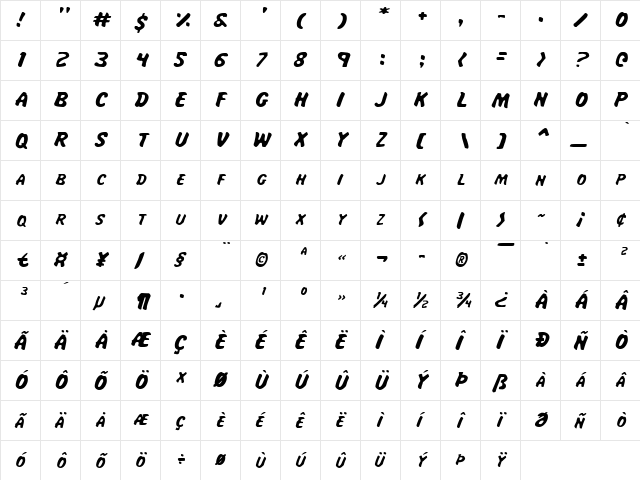
Miss Amanda Jones Ital Ital
Design Context for Miss Amanda Jones Ital Typeface
Miss Amanda Jones Ital is a composed and adaptable typeface that performs quietly and consistently across a wide range of design contexts.